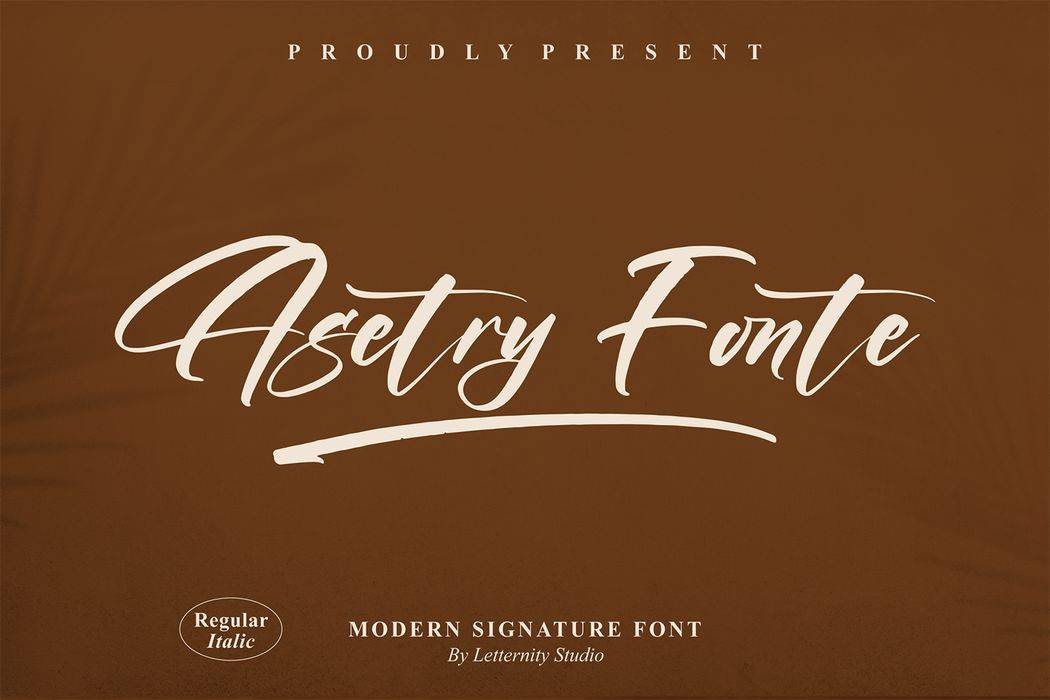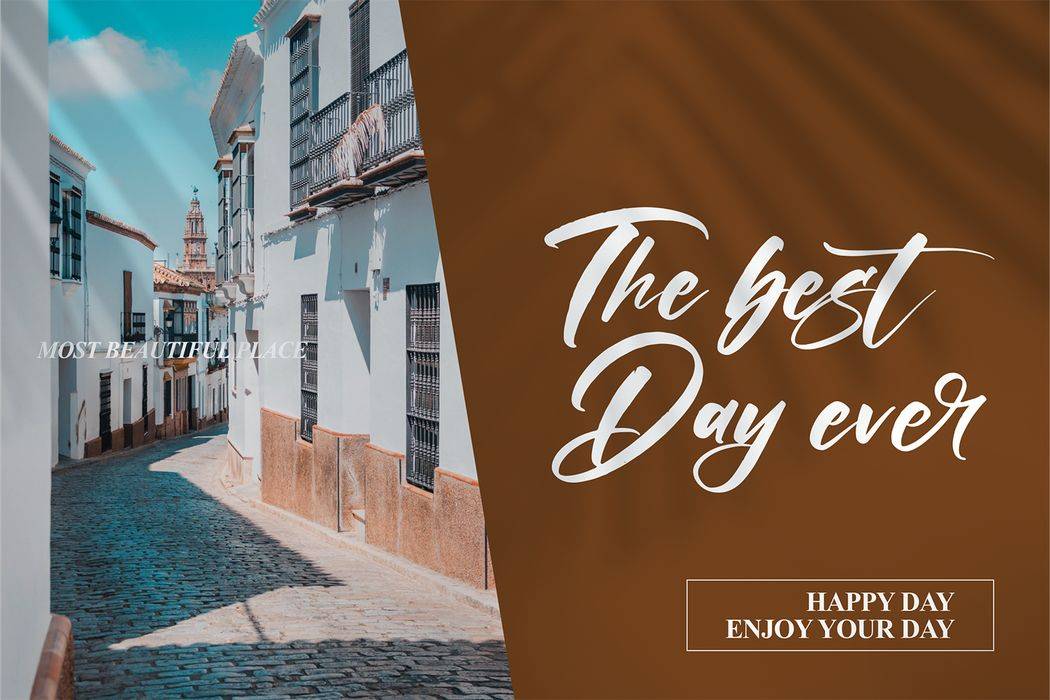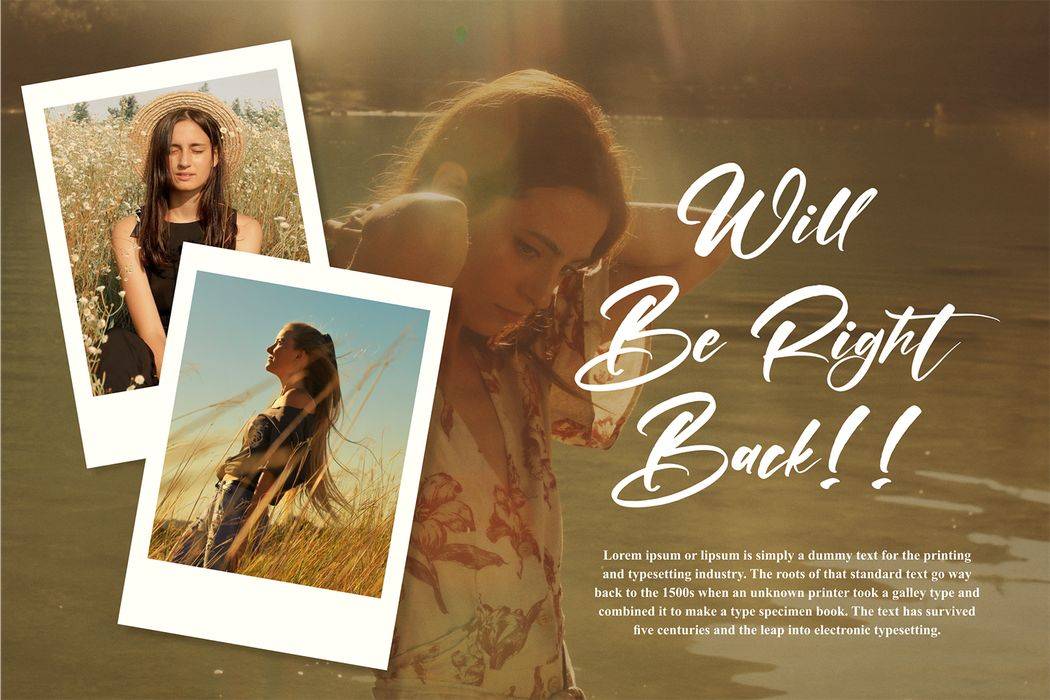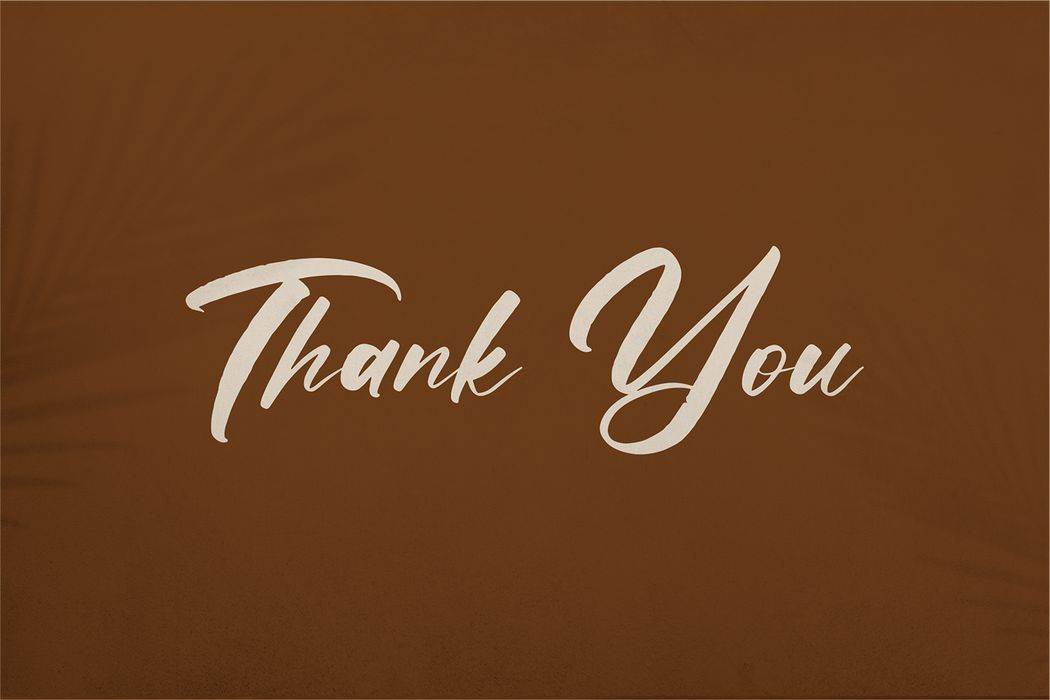
Asetry Fonte is an elegant, handwritten script font featuring delicate, flowing strokes with a high contrast between thick and thin lines. Its tall, slender letterforms and decorative curves create a sophisticated, artistic feel ideal for invitations, branding, and stylish headlines that need a personal, feminine touch. This font works beautifully where a graceful and expressive look is desired, adding charm and refined personality to any design.
Asetry Fonte Font